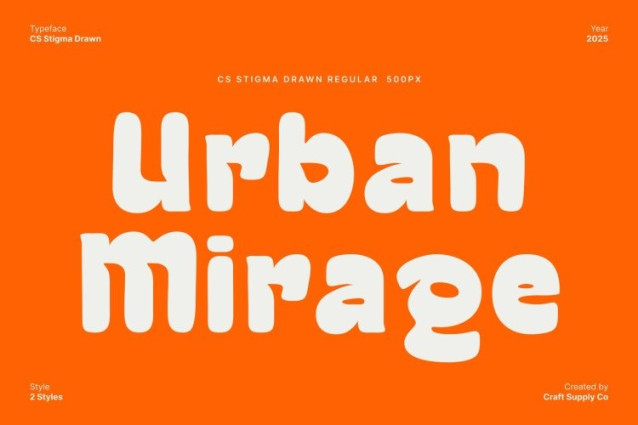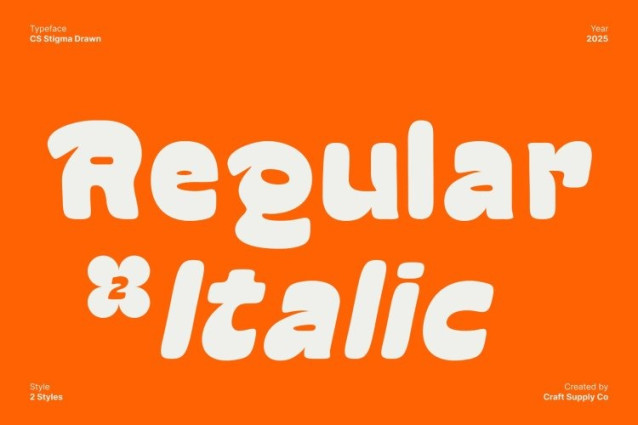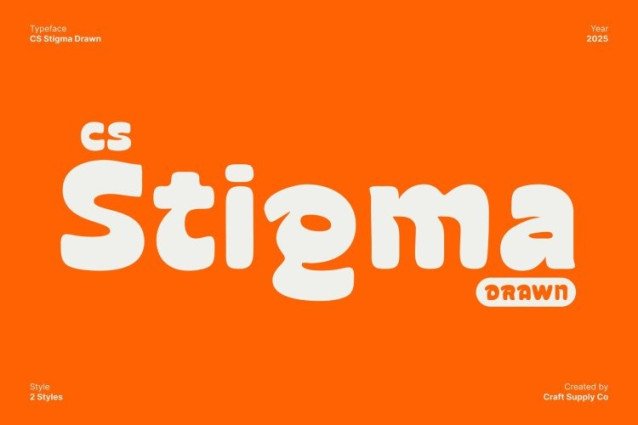
CS Stigma Drawn Font
CS Stigma Drawn Font This is a bold display font crafted to make every message stand out with power and clarity. Its heavy, confident letterforms create a striking visual impact, making it perfect for headlines, posters, and bold branding that needs to grab attention instantly. The funky shape style adds a playful twist, blending strength with personality.
Hand-Drawn Texture for Unique Artistic Character
Enhanced by a distinctive drawn effect, this font features textured edges and irregular strokes that give it a handcrafted, expressive feel. These organic imperfections add depth, energy, and individuality, ensuring every letter looks alive and dynamic. The textured finish makes This font a unique choice for designs that want to break away from clean, standard fonts.
Perfect for Posters, Headlines, and Strong Branding
With its bold shape and artistic texture, excels in any project that demands visual impact. Use it for posters, editorial headlines, brand identities, event promotions, or creative campaigns that rely on a powerful, statement-making typeface. Its funky aesthetic brings personality while maintaining strong readability.
A Versatile Display Font with Funky, Expressive Style
This font combines heavy display forms with handmade texture to create a font that feels bold, lively, and uniquely artistic. It offers the perfect balance of strength and creativity, making it ideal for designers who want to add attitude, texture, and funky character to their work.